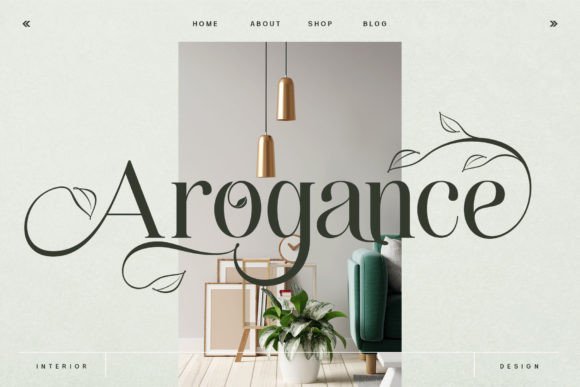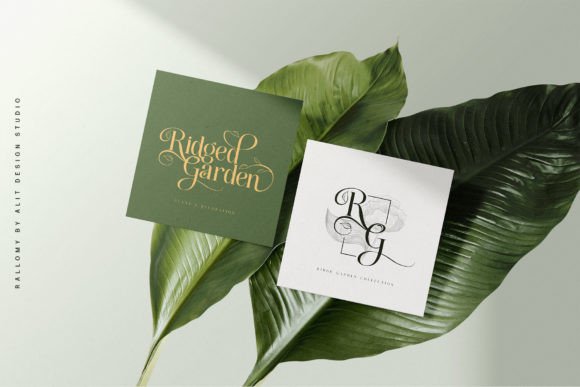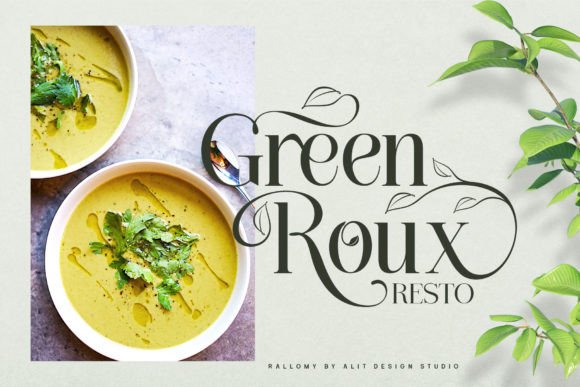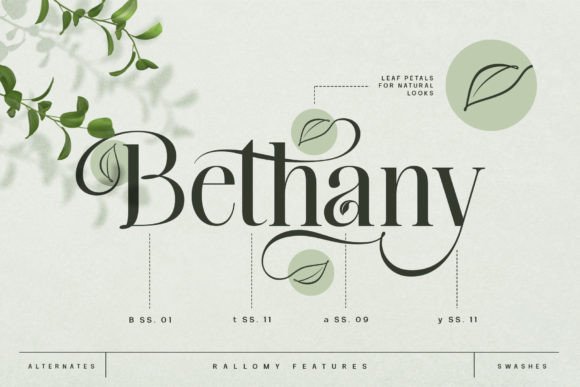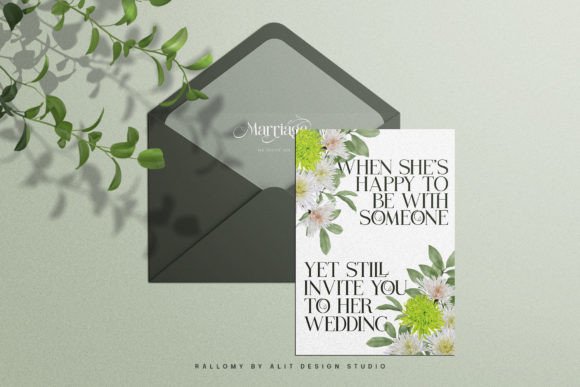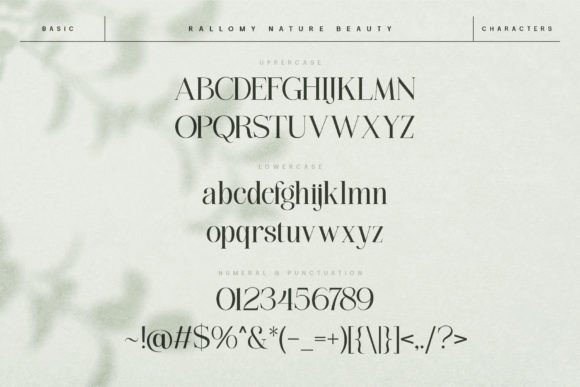
Introduction to Rallomy Font
As designers, we’ve all been there – stuck in a creative rut, searching for the perfect font to bring our project to life. For many, it’s the moment when inspiration strikes, and we stumble upon a font that perfectly captures the essence of our vision. For those working on projects that aim to evoke the beauty of nature, the Rallomy Font is a game-changer. This stunning serif font is designed to transport you to a world of serenity and tranquility, making it an ideal choice for any design project that seeks to connect with the natural world.
With its dynamic alternating swash featuring a leaf symbol and a ligature system that ensures a harmonious combination of characters, the Rallomy Font is a high-quality design resource that is sure to elevate any creative project. Whether you’re working on a project that requires a free download with a transparent background or simply want to add a touch of natural elegance to your design, the Rallomy Font is a valuable asset that is sure to impress.
Key Features of Rallomy Font
- Perfect for use in digital design, graphic design, and web design projects
- Features a unique and stylish design that can elevate any creative project
Honest Review: Rallomy Font
I recently came across the Rallomy Font, and I was excited to give it a try for my latest creative project. As a designer, I’m always on the lookout for high-quality design resources that can help me take my work to the next level.
Here are some things that work well with the Rallomy Font:
- ✨ High-quality design: The font is well-designed and has a professional look to it.
- ⚠️ Limited font styles: The Rallomy Font only comes in a few different styles, which may not be suitable for all projects.
- ⚠️ Not suitable for complex text: The font may not be the best choice for complex text or long blocks of text.
Overall, I was impressed with the Rallomy Font and would definitely recommend it for simple design projects. While it has some limitations, it’s a great resource to have in your toolkit.
Tips for Getting the Most Out of Rallomy Font
To get the most out of the Rallomy Font, experiment with different font sizes, colors, and styles. You can also combine it with other design elements to create unique and eye-catching designs.
Common Use Cases for Rallomy Font
The Rallomy Font is ideal for various creative projects, including logos, business cards, brochures, and social media graphics. Its versatility and high-quality design make it a popular choice among designers and non-designers alike.